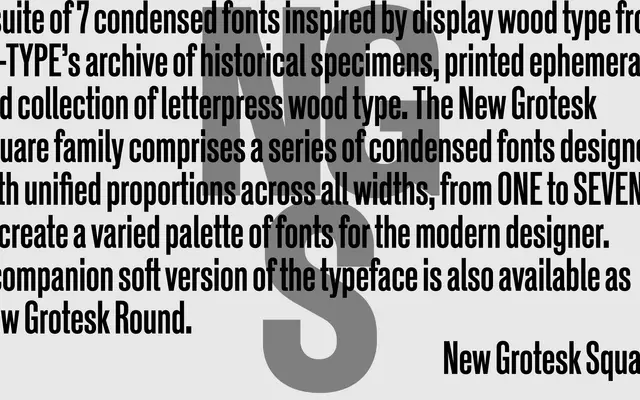
New Grotesk Square
New Grotesk Square specimen from A2-Type
Seven condensed grotesque cuts drawn from historical wood type specimens, organised by increasing width from ONE to SEVEN.
Drawn from A2-Type's archive of letterpress wood type and printed ephemera, the family sequences seven fonts by width rather than weight, each sharing unified proportions across the range. The square-cornered forms give it a crisp, mechanical character suited to posters, headlines and identity work. A companion family, New Grotesk Round, offers the same system with softened terminals.
A suite of condensed grotesque display fonts drawn from wood type references, organised by width rather than weight. Its display-oriented proportions and wood type heritage place it firmly in the display category.